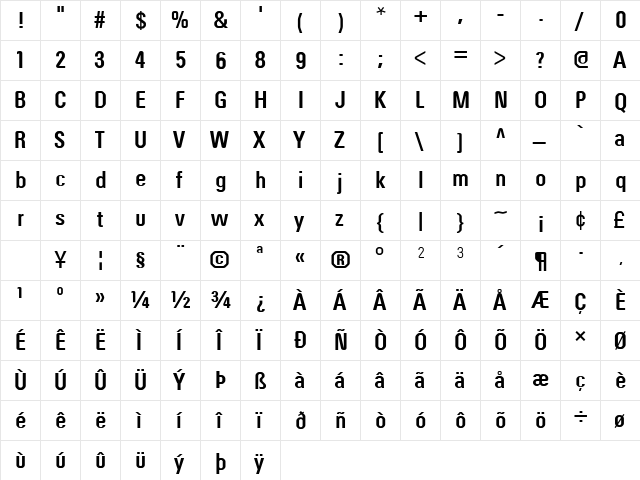
Order Bold
Design Context for Order Typeface
Order offers clean, dependable letterforms without strong stylistic allegiance, making it a practical choice for designers who need flexibility. The heavy weight commands attention and anchors typographic hierarchies.